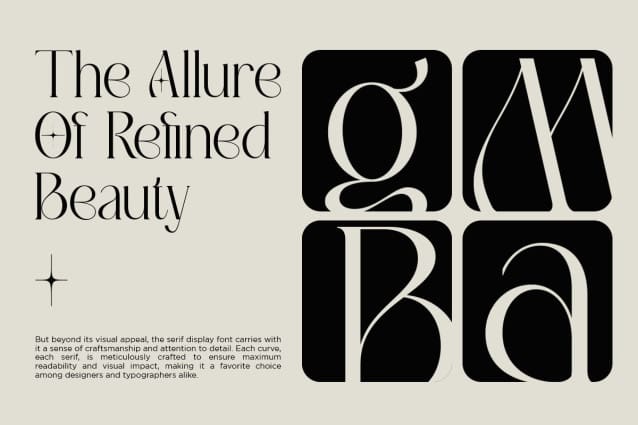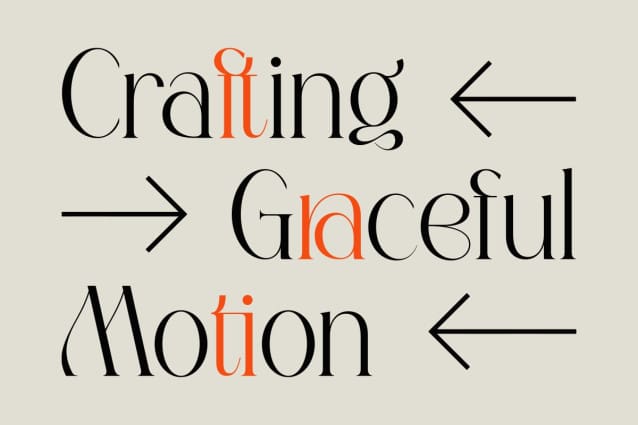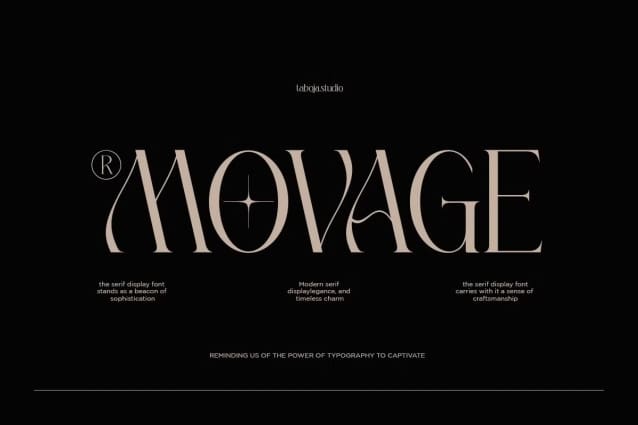
TBJ Movage Font
TBJ Movage Font is a typeface that combines stylish display style with ease of use. With an elegant design and unique characteristics. Movage presents an elegant design with a modern stylish touch. Each letter is crafted with captivating detail, giving off a Modern Minimalist impression.
TBJ Movage comes with multilingual alternate characters, allowing for customization of text appearance according to different languages. This ensures that the font can be effectively used in various global communication contexts.
The Movage font also features stylish ligatures, adding a unique aesthetic touch to every text composition. These ligatures are designed to enhance the text appearance and create a cohesive and attractive impression. With all these features, it is the perfect choice for designers looking for a combination of elegance, style, and ease of use in one beautiful package.